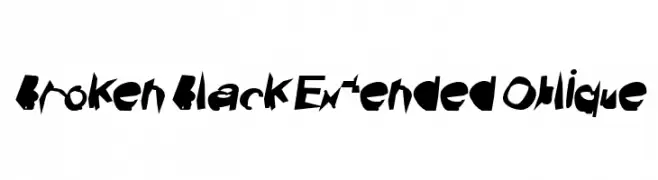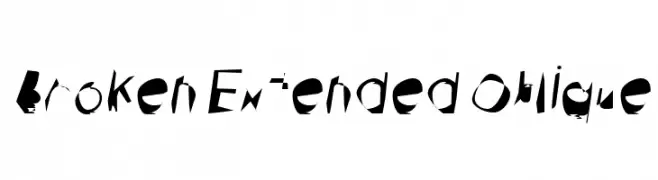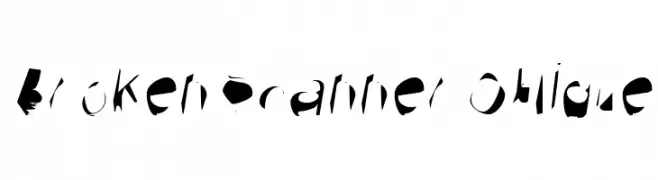
( Fonts by Emil Bertell - www.fenotype.com )
A modern, neon-inspired font with bold, continuous lines and geometric shapes.
Hand-drawn decorative font with whimsical heart doodles.
A bold, playful font with a shattered glass effect, perfect for creative projects.
A bold, decorative font with a fragmented, glitch-like style.
( Fonts by ShyFonts )
A bold, condensed, and italicized font with a shattered, distressed style.
( Fonts by ShyFonts )
A bold, fragmented font with a dynamic, shattered appearance.
( Fonts by ShyFonts )
A bold, fragmented font with a rugged, distressed appearance.
( Fonts by Mike Lecky - www.superfunk.com )
A rugged, distressed font with a cracked, edgy appearance.
( Fonts by Maniackers Design - www.mksd.jp OFF SITE )
A modern, geometric font with a continuous line style, perfect for a futuristic look.
A bold, fragmented font with a glitch-inspired design.
( Fonts by TarmSaft Font Factory - http://www.aska.nu/tarmsaft/ )
A bold, distressed font with a fragmented, graffiti-like appearance.
( Fonts by David Rakowski )
A bold, shattered-effect decorative font with dynamic and fragmented characters.
A bold, fragmented font with a shattered, angular design for impactful visuals.
An artistic font of abstract, continuous line drawings resembling whimsical characters.
( Fonts by TarmSaft Font Factory - http://www.aska.nu/tarmsaft/ )
A highly decorative and abstract font with fragmented, angular shapes.
A bold, fragmented font with a shattered glass effect.
A bold, fragmented font with an italic slant, perfect for dynamic and artistic designs.
( Fonts by Divide By Zero! - fonts.tom7.com )
A bold, dynamic font with jagged edges and a sense of movement.
A shattered glass effect font with geometric, angular characters.